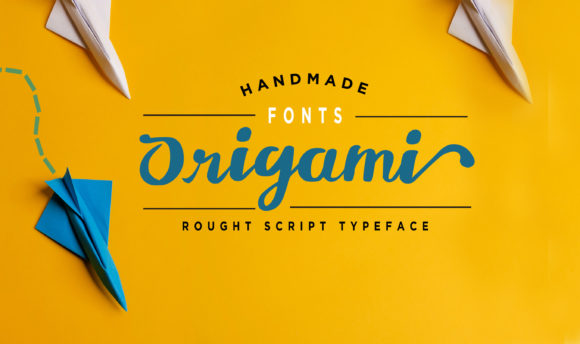
Unleash the Elegance: Origami Font - Your Gateway to Creative Expression
Step into a world of sophistication and charm with Origami Font, the captivating handwritten font crafted by Nurstudio. Designed with an air of grace and modernity, Origami offers a visual masterpiece that elevates your designs to new heights of creativity.
As a script font, Origami exudes a natural flow and organic beauty, reminiscent of the timeless art of calligraphy. Its delicate curves and sweeping strokes bring a touch of elegance and charm to any project, whether you're creating a simple logo, designing a wedding invitation, or showcasing your products in a captivating manner.
Embrace Versatility: A Font for Every Occasion
With Origami Font, versatility is key. Seamlessly adaptable to a myriad of creative endeavors, this font shines in a multitude of applications. From crafting heartfelt wedding invitations and personalized stationery to adding a touch of elegance to your social media posts and marketing materials, Origami effortlessly elevates your designs, making a lasting impression on your audience.
Unlock the Power of Simplicity: The Perfect Logo Font
In the realm of branding, simplicity often holds the key to creating a memorable and impactful logo. Origami Font, with its clean lines and unassuming presence, provides the perfect foundation for crafting a logo that stands the test of time. Its understated elegance allows your brand's message to take center stage, ensuring that your logo remains timeless and recognizable.
Effortless Access to Creative Excellence
Origami Font is meticulously PUA encoded, granting you effortless access to its entire repertoire of glyphs and swashes. Unleash your creativity and explore the endless possibilities, seamlessly incorporating unique characters and flourishes into your designs. With Origami, the boundaries of your imagination are the only limits.
Experience the Magic of Origami Font: Your Creative Catalyst
Origami Font is more than just a font; it's an invitation to embark on a creative journey, a gateway to a world where your ideas take flight. Whether you're a seasoned designer or just starting your creative exploration, Origami empowers you to transform your visions into tangible masterpieces.
Don't let this opportunity pass you by. Embrace the beauty of Origami Font and watch your creative endeavors flourish. Its elegance, versatility, and simplicity await your touch, ready to elevate your designs and leave an enduring mark on the world.